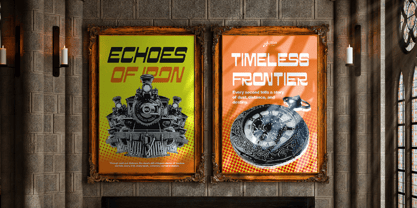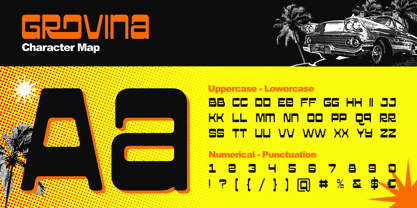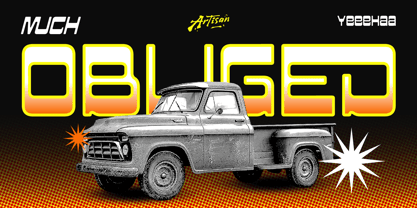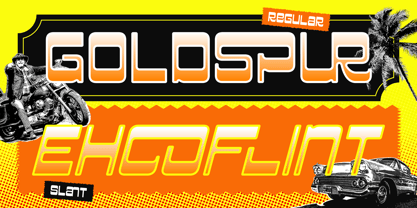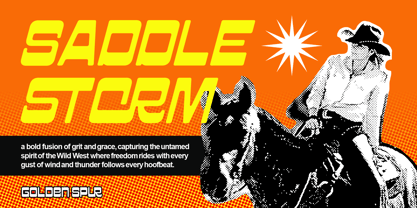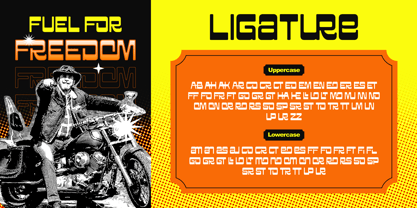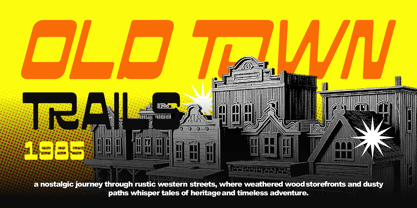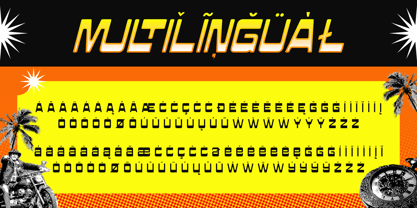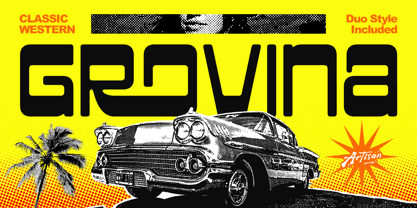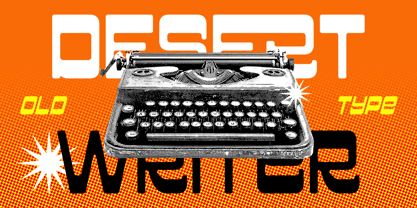
Grovina
by Artisan Themes
The Grovina Font Family was designed by Meidy Meichico and published by Artisan Themes. Grovina contains 2 styles and family package options. More about this family
Grovina is a bold retro typeface built for speed and style. Inspired by vintage car emblems, biker jackets, and old western movie posters, this font brings that gritty-but-cool attitude to your design. With two styles – Regular and Slant – Grovina rides smoothly between classic and modern. Perfect for logo designs, posters, vintage labels, or anything that needs a little horsepower and rebel energy. Rev up your creativity and let Grovina take you on a wild ride through retro streets and neon nights. Features: A - Z set (Uppercase & Lowercase), Number, Ligatures, Punctuation, Multilingual
Designers: Meidy Meichico
Foundry: Artisan Themes